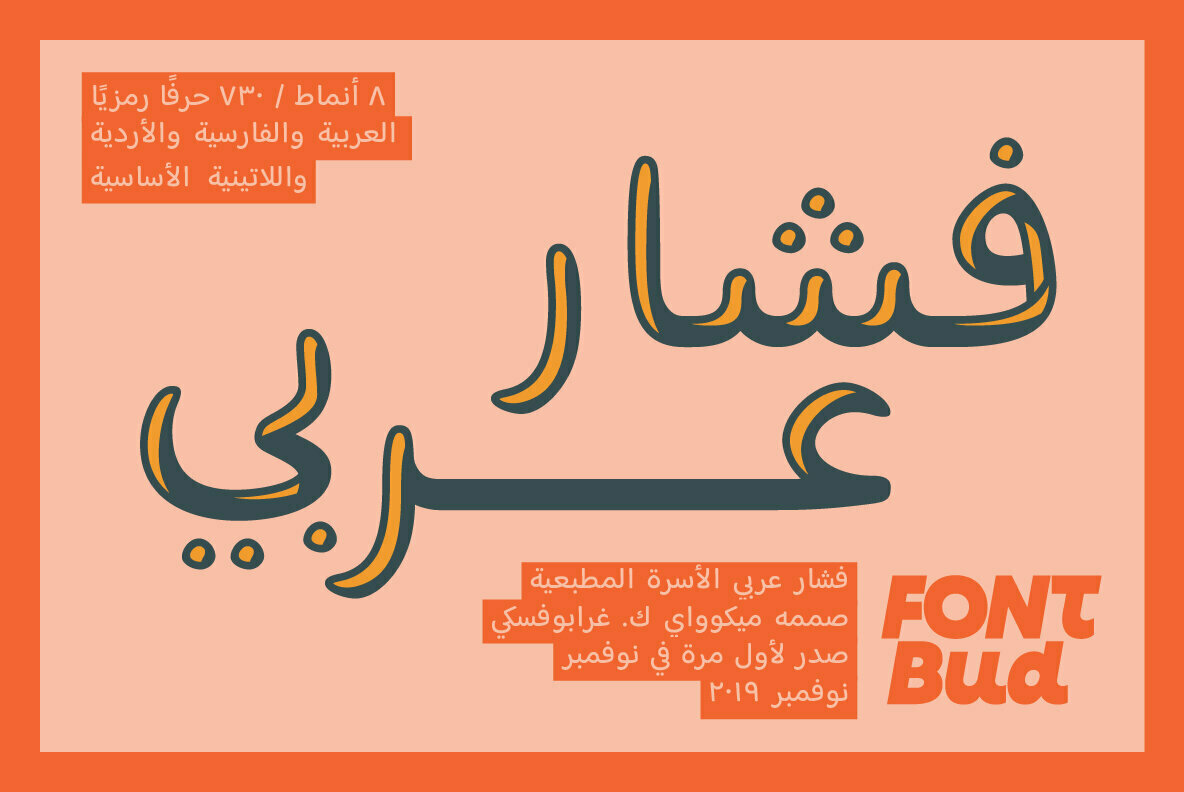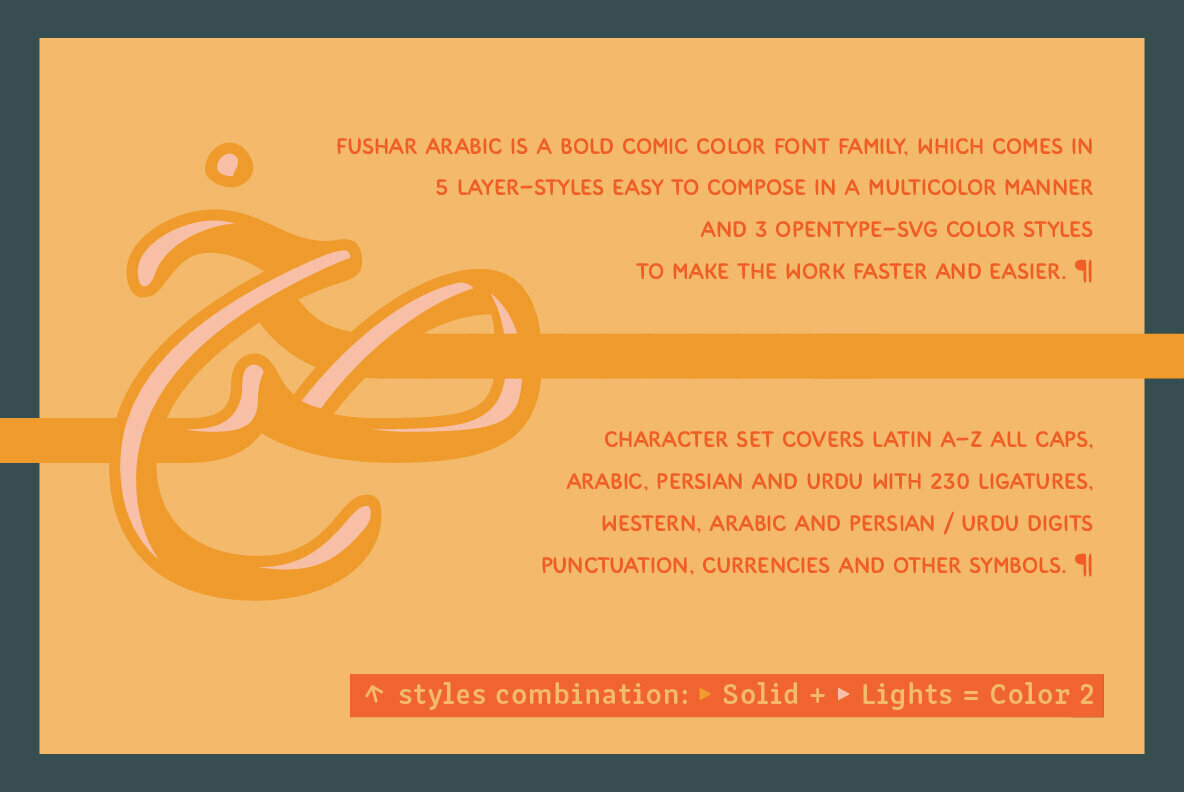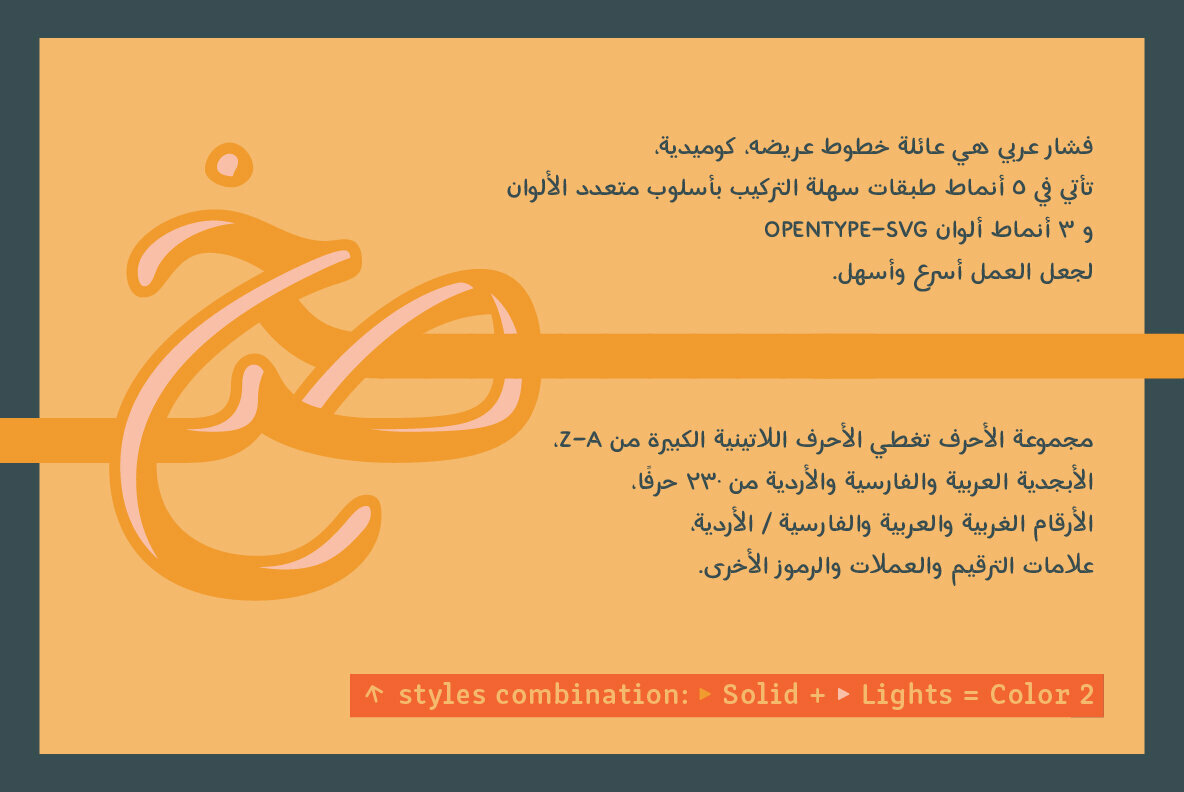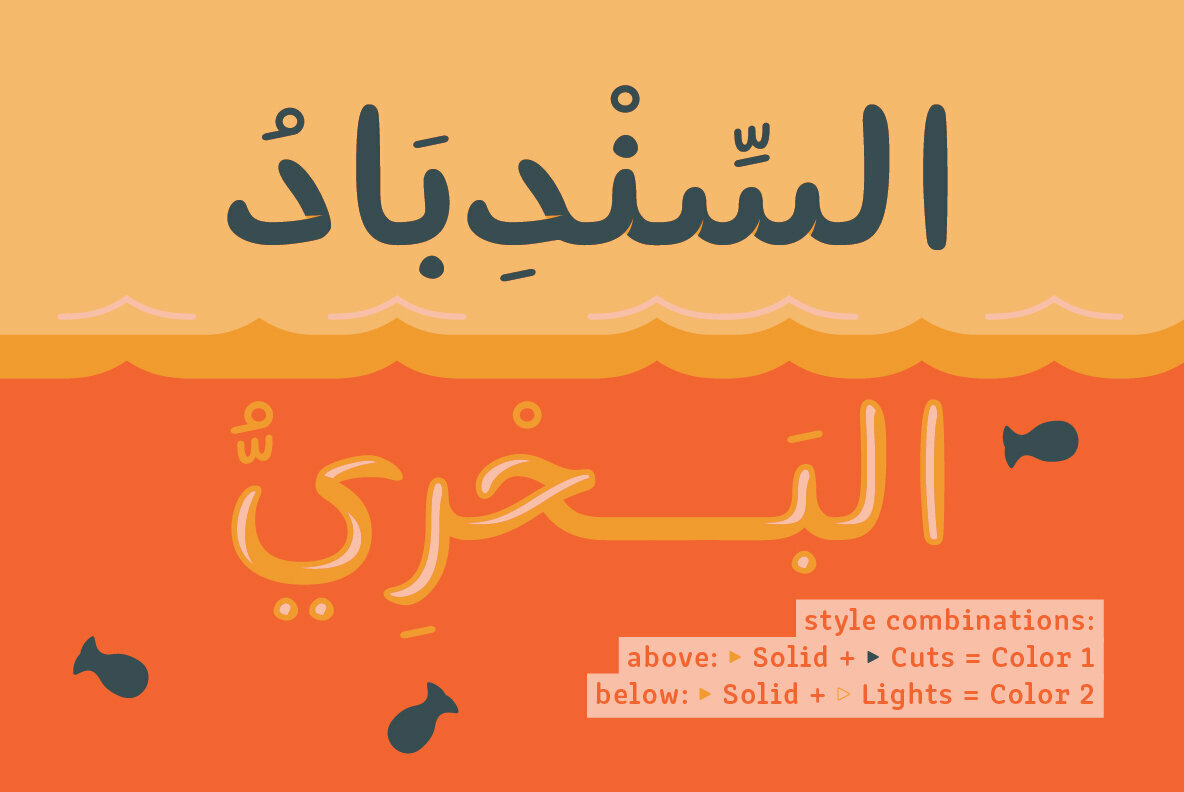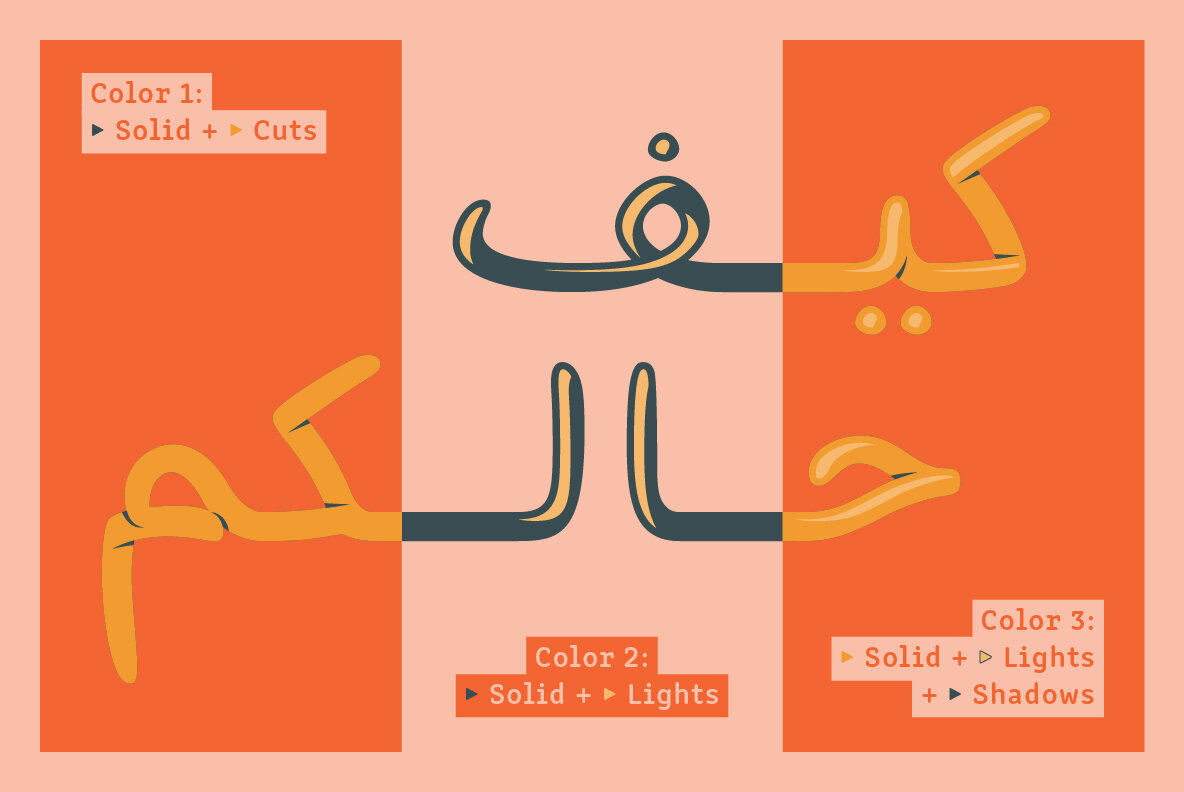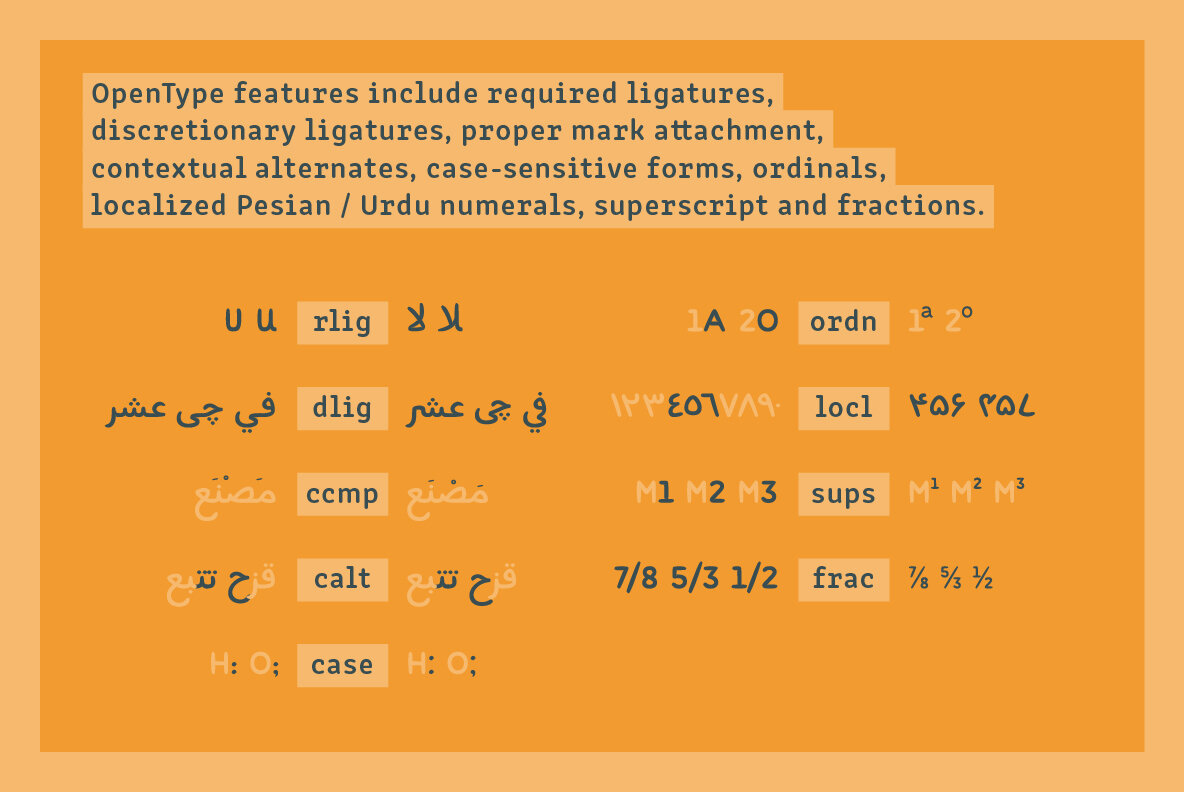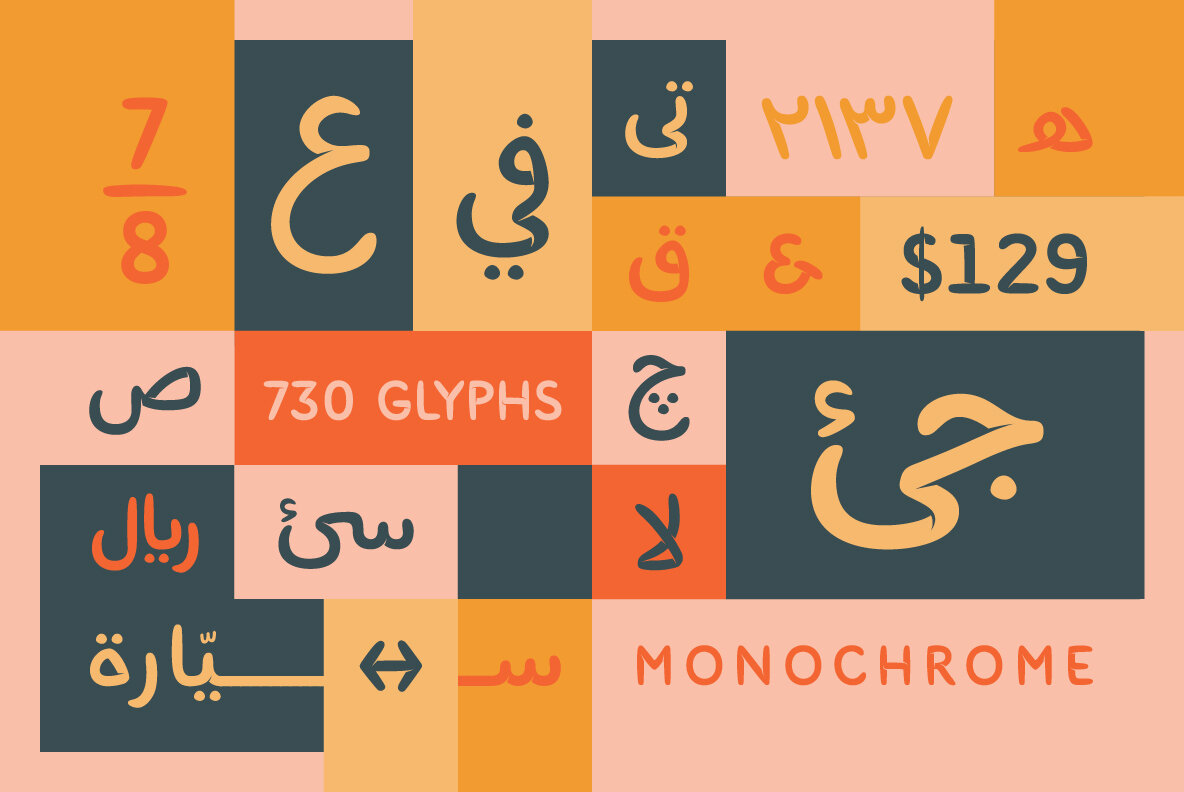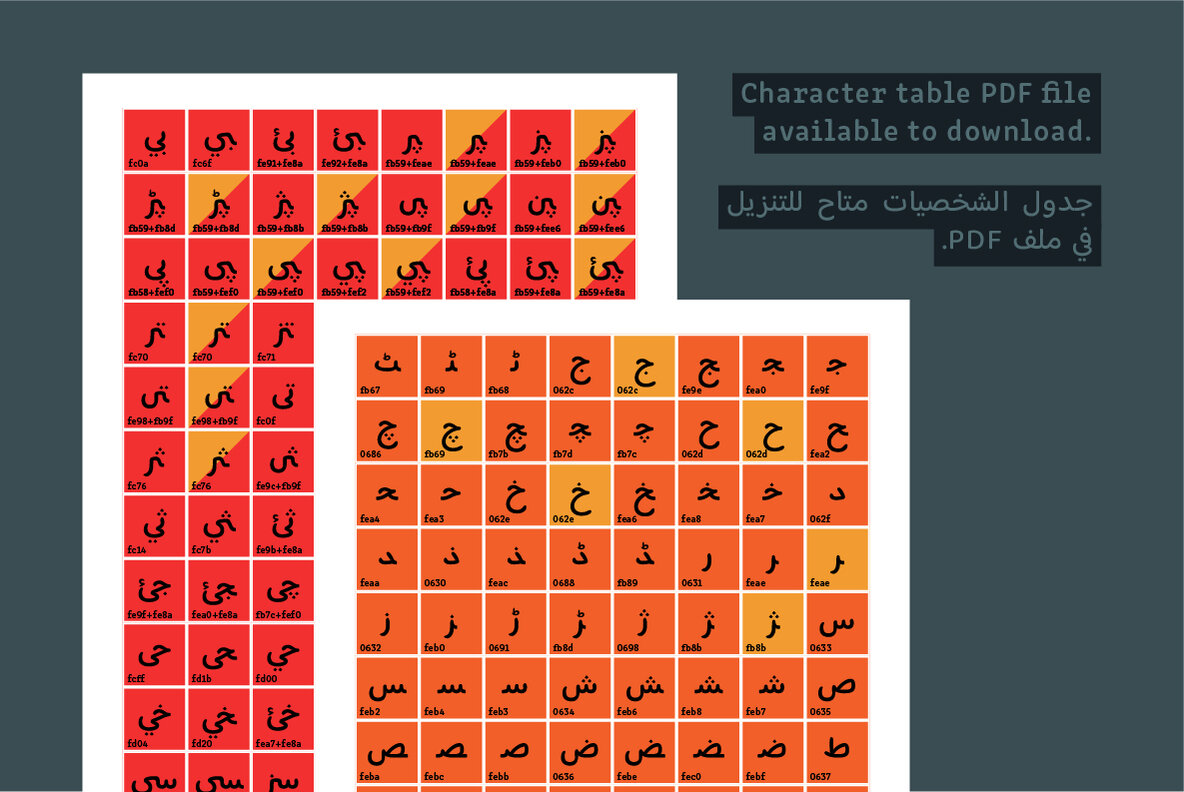
Fushar Arabic - SVG Color Font
Fushar Arabic is a bold comic color font family which comes in 5 layer-styles easy to compose in a multicolor manner and 3 OpenType-SVG color styles to make the work faster and easier. Character set covers Latin A-Z all caps, Arabic, Persian and Urdu with 230 ligatures, European, Arabic and Persian / Urdu localized digits, punctuation, currencies and other symbols - the total of 730 glyphs.
The idea came from a custom logotype I made several years ago for a local charity organisation that helps children. The logotype was based on bold letters with light that make the "balloon" effect visible in "Holes" style. Later I expanded the family with "Cuts" and all the derivative fonts that make the whole color family. The purpose was to create a funny, friendly and playful script that would embrace the beauty of the Arabic alphabet.
Solid, Cuts and Holes are classic one-color styles which can be used separately to compose a simple text. With Shadows and Lights they can produce a multicolour design, as shown on the images above. To save the time, there are three already prepared combinations in the new OpenType-SVG color format. The features include required ligatures, discretionary ligatures, proper mark attachment, contextual alternates, case-sensitive forms, ordinals, localised Persian/Urdu numerals, superscript (1, 2, 3) & fractions.